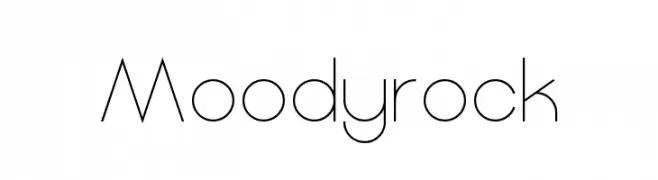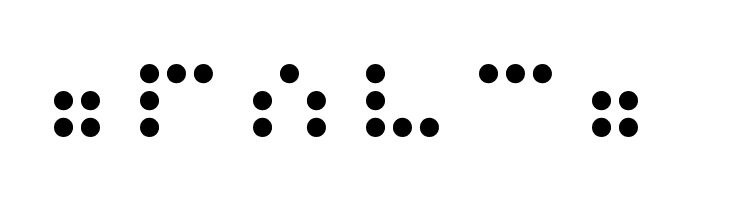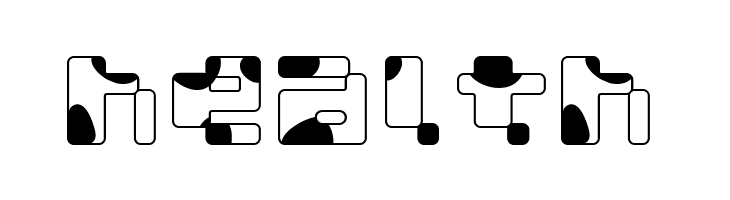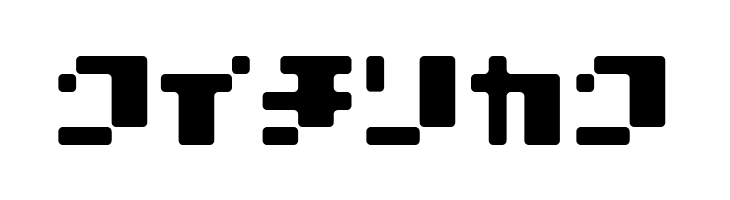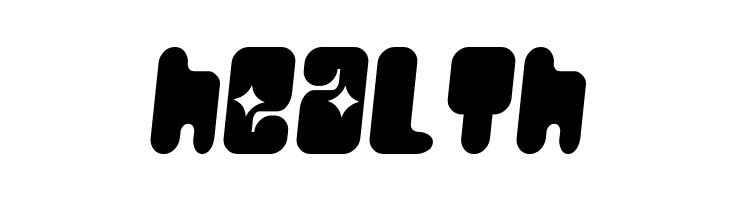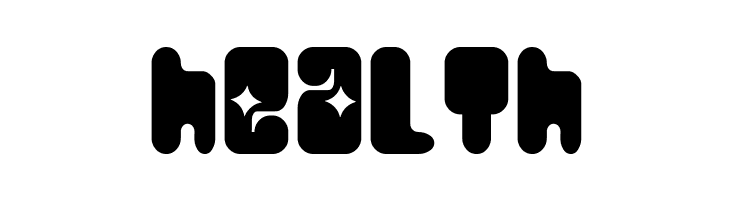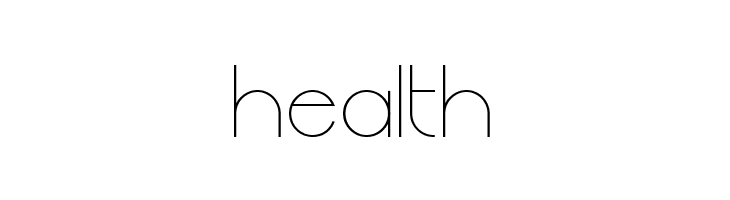
( George Williams - web.archive.org/web/20051223080638/bibliofile.mc.duke.edu/gww/fonts/fonts.html )
A dynamic monospace font with an oblique slant, offering uniformity and elegance.
( George Williams - web.archive.org/web/20051223080638/bibliofile.mc.duke.edu/gww/fonts/fonts.html )
A clean and organized monospaced font ideal for coding and data presentation.
( Julieta Ulanovsky - twitter.com/julietulanovsky )
A bold, modern sans-serif font with clean lines and excellent readability.
( Julieta Ulanovsky - twitter.com/julietulanovsky )
A modern, geometric sans-serif font with a clean and professional look.
( Greataris - greataris.blogspot.co.id/ )
A sleek, modern font with geometric, minimalist design and thin lines.
( Flop Design - www.flopdesign.com/ )
A playful, cow-patterned font with bold, blocky letters and rounded edges.
( Flop Design - www.flopdesign.com/ )
A bold, geometric font with a playful and modern style.
( Falexoo - en.fakoo.de )
A tactile writing system using raised dot patterns for the visually impaired.
( Font-a-licious - www.fontalicious.com/ )
A bold, space-themed font with playful star cutouts and geometric shapes.
( Font-a-licious - www.fontalicious.com/ )
A bold, playful font with star-shaped cutouts and a futuristic, space-themed design.